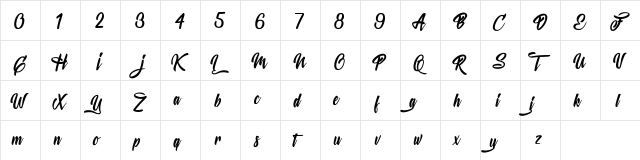
Mysterious Lovers Regular
| Foundry | Octotype |
| Designer | Octotype |
Design Context for Mysterious Lovers Typeface
Mysterious Lovers is a composed and adaptable typeface that performs quietly and consistently across a wide range of design contexts.